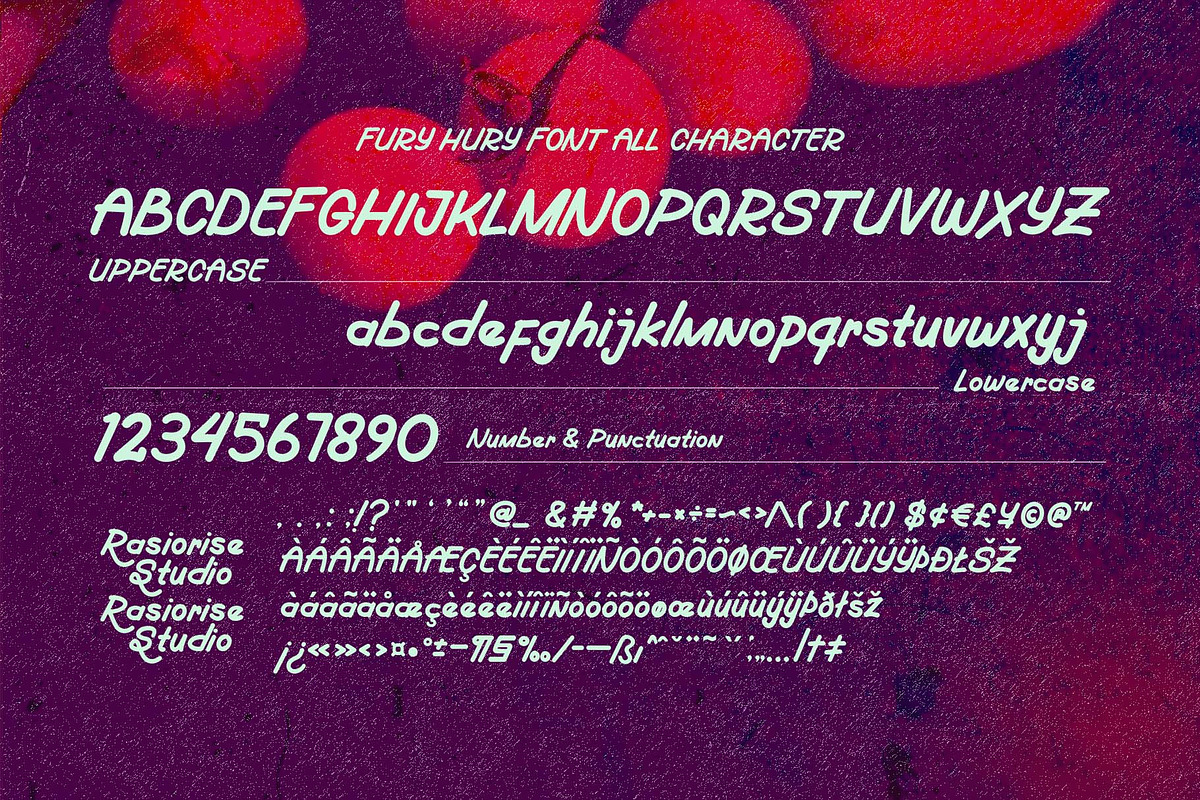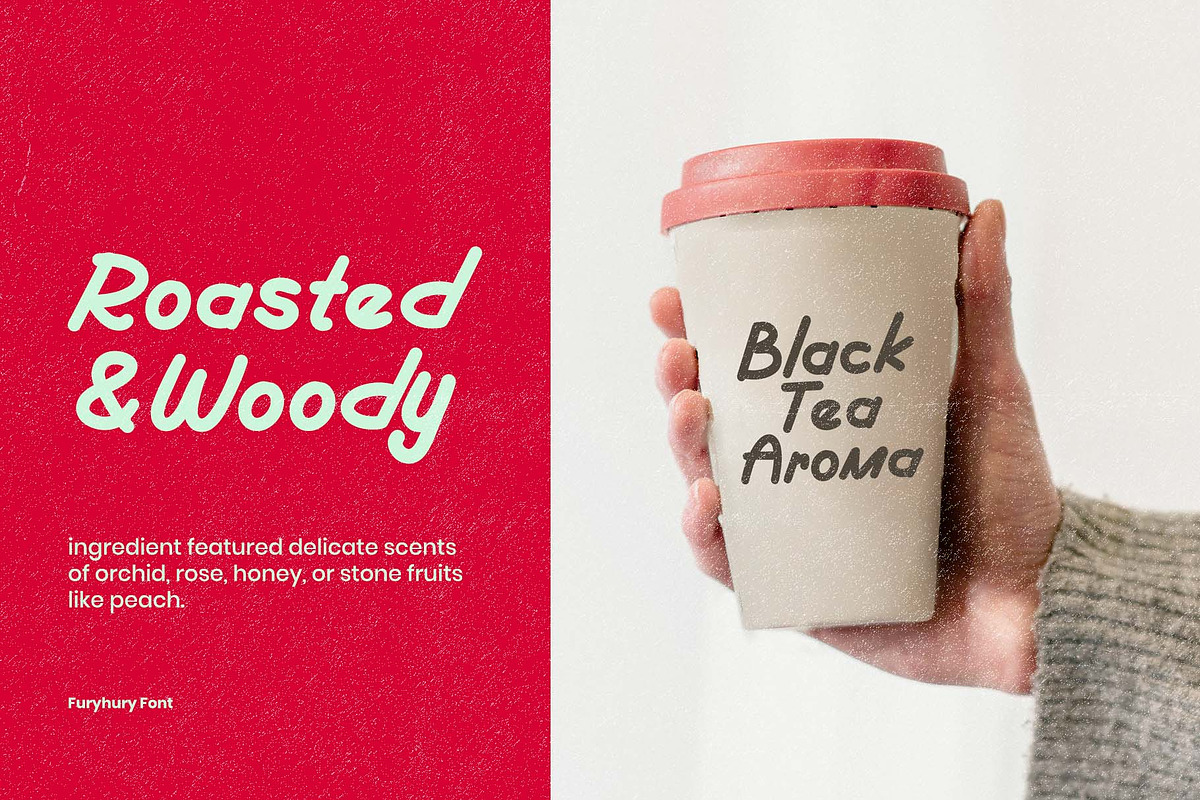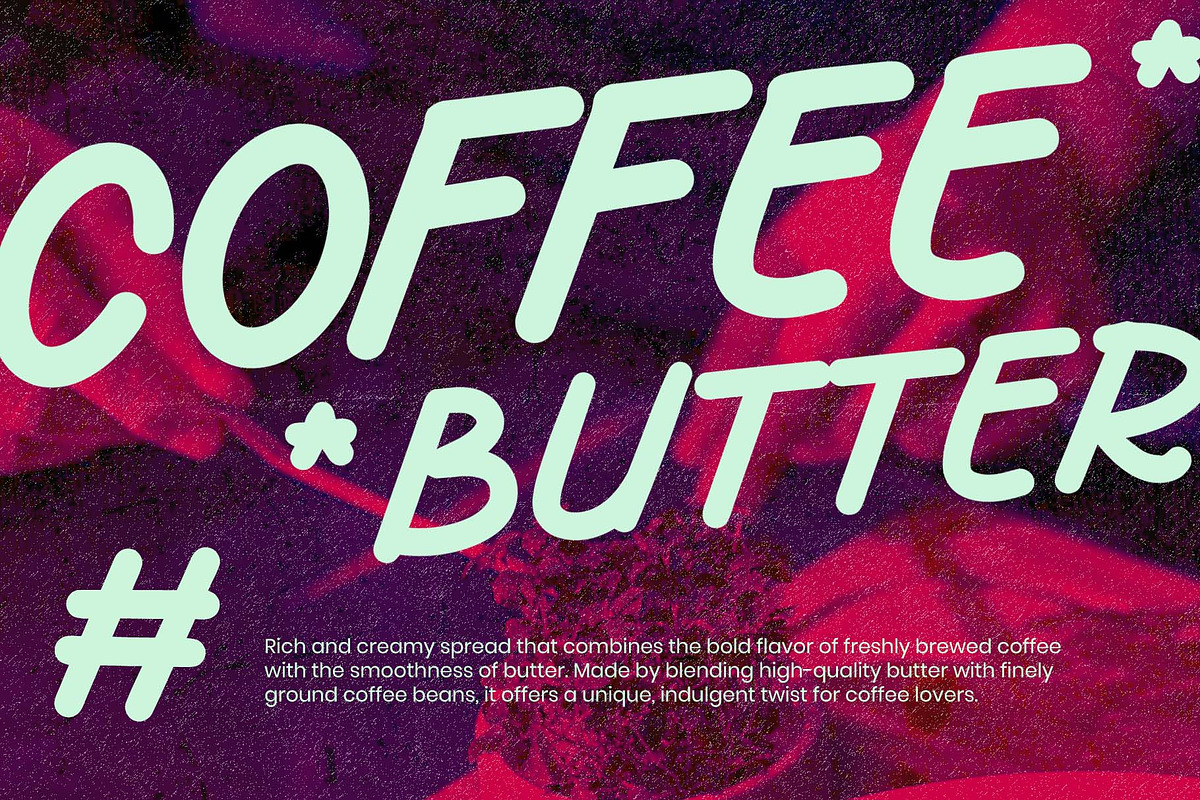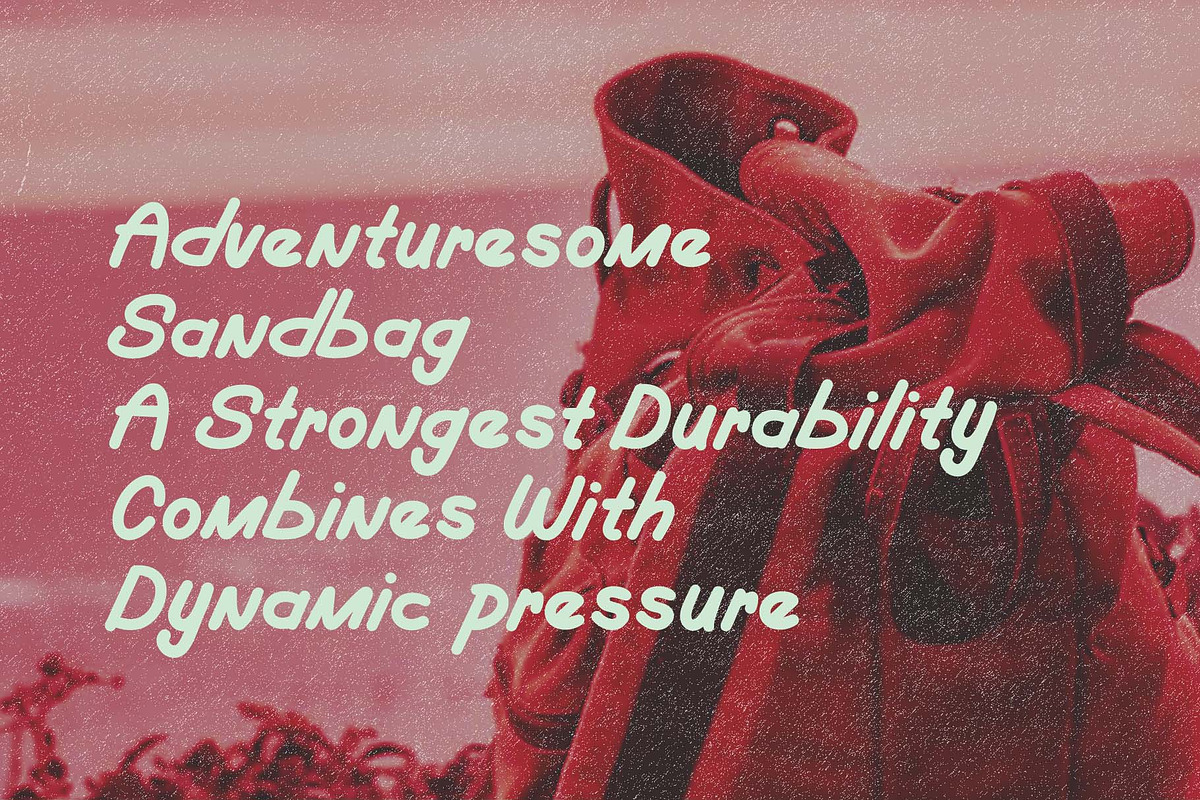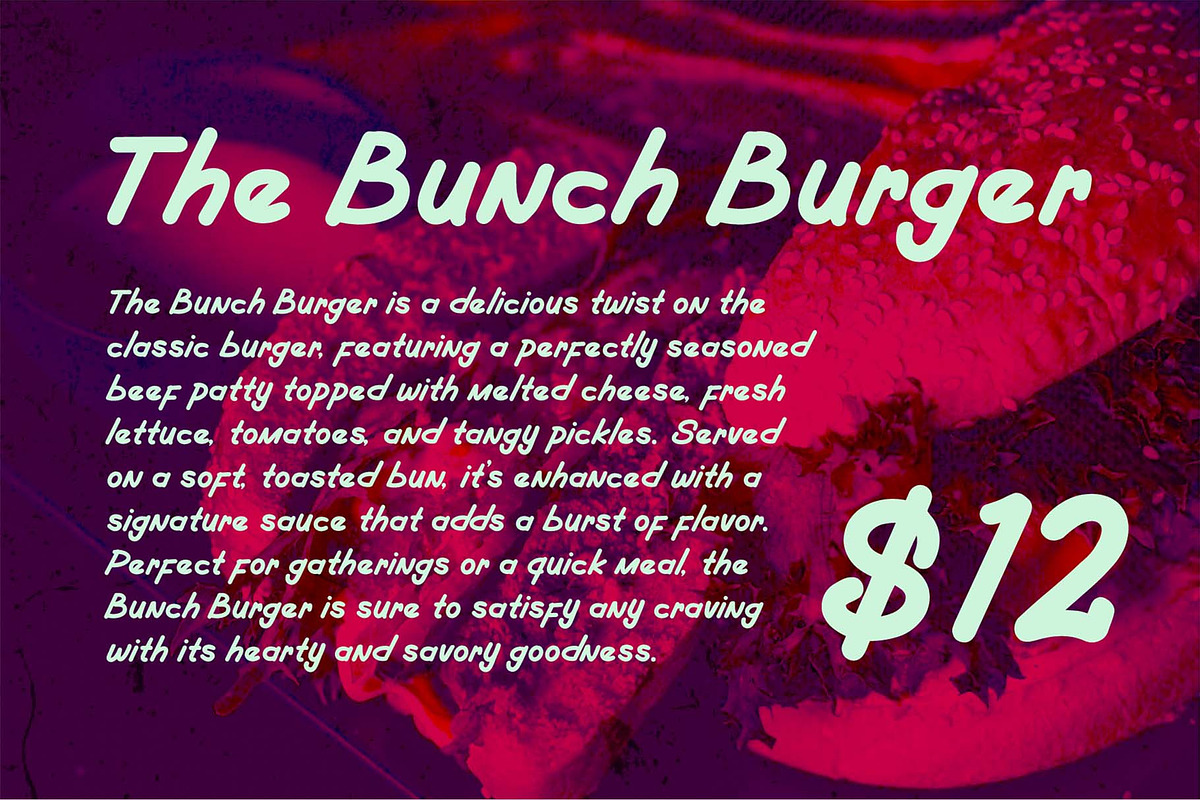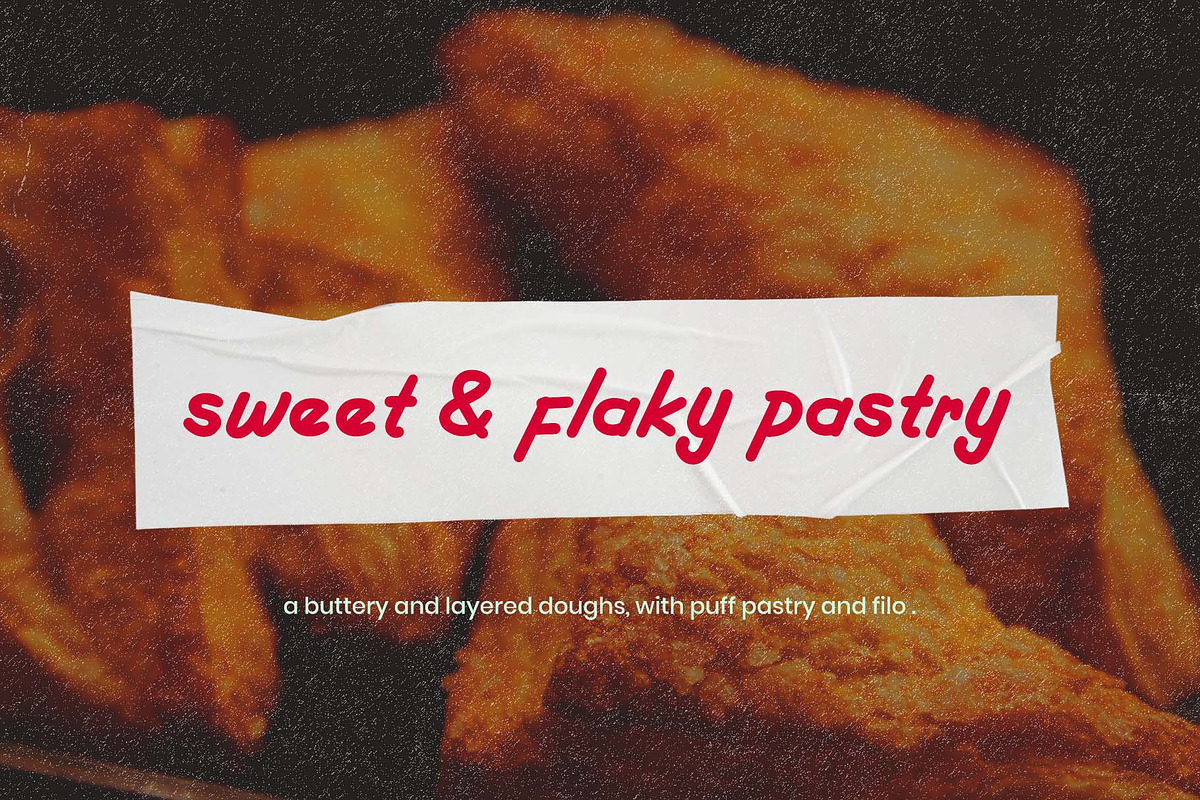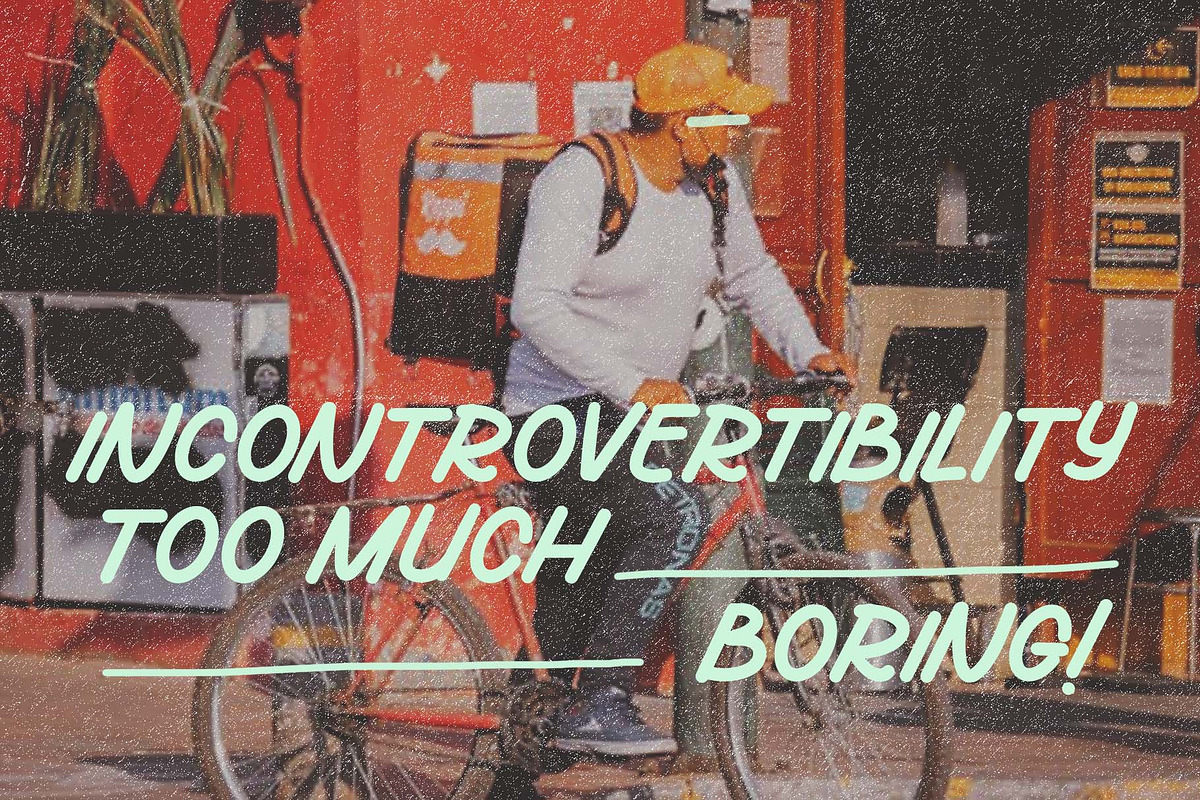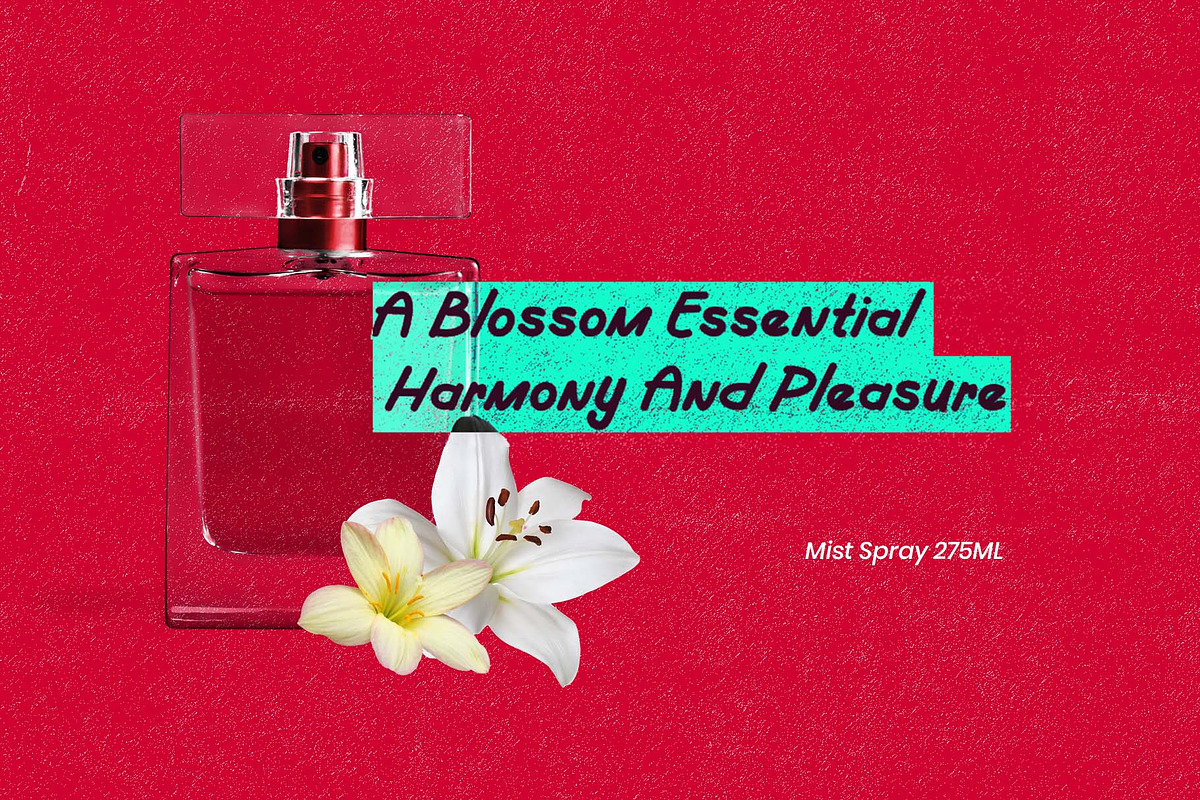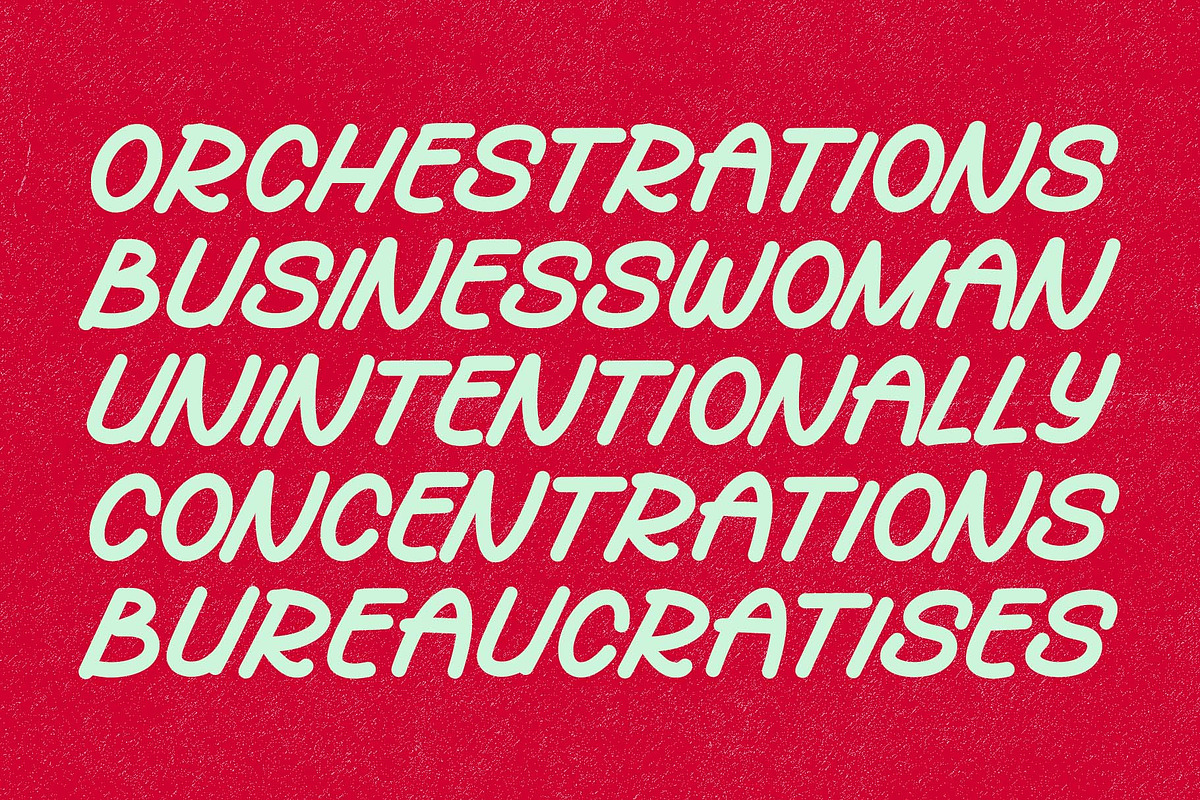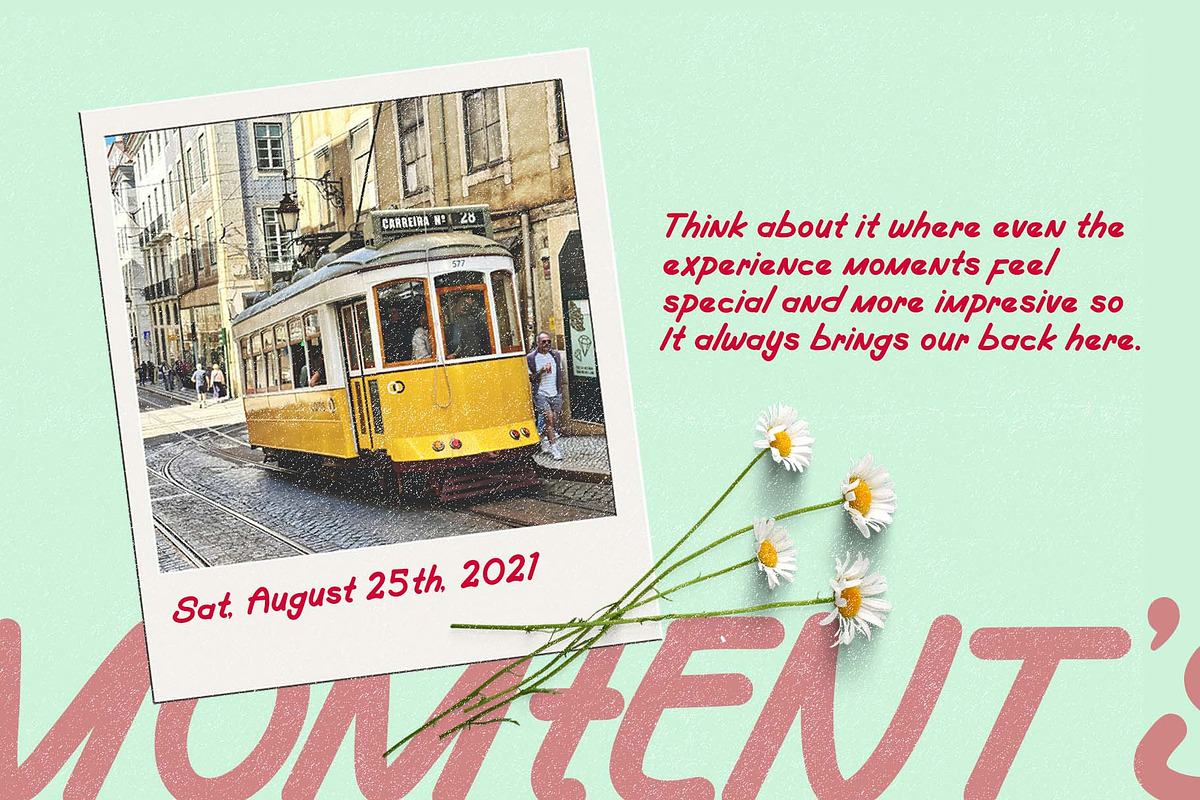
Fury Hury // Handwritten Font
Hello Everyone! Fury Hury a Handwritten Font has been released for those of you who are looking for a Food Font Character, basicaly The font is inspired by the handwritten with rounded character, with a few combine to turn them into a bit hard line and bold script style including with Ligature and Alternate character. The font is suitable for any branding project like food, resturant menu, kids, poster, logo, sport, and many more.